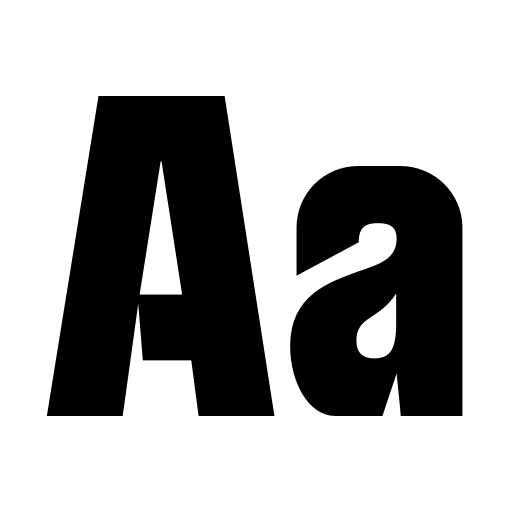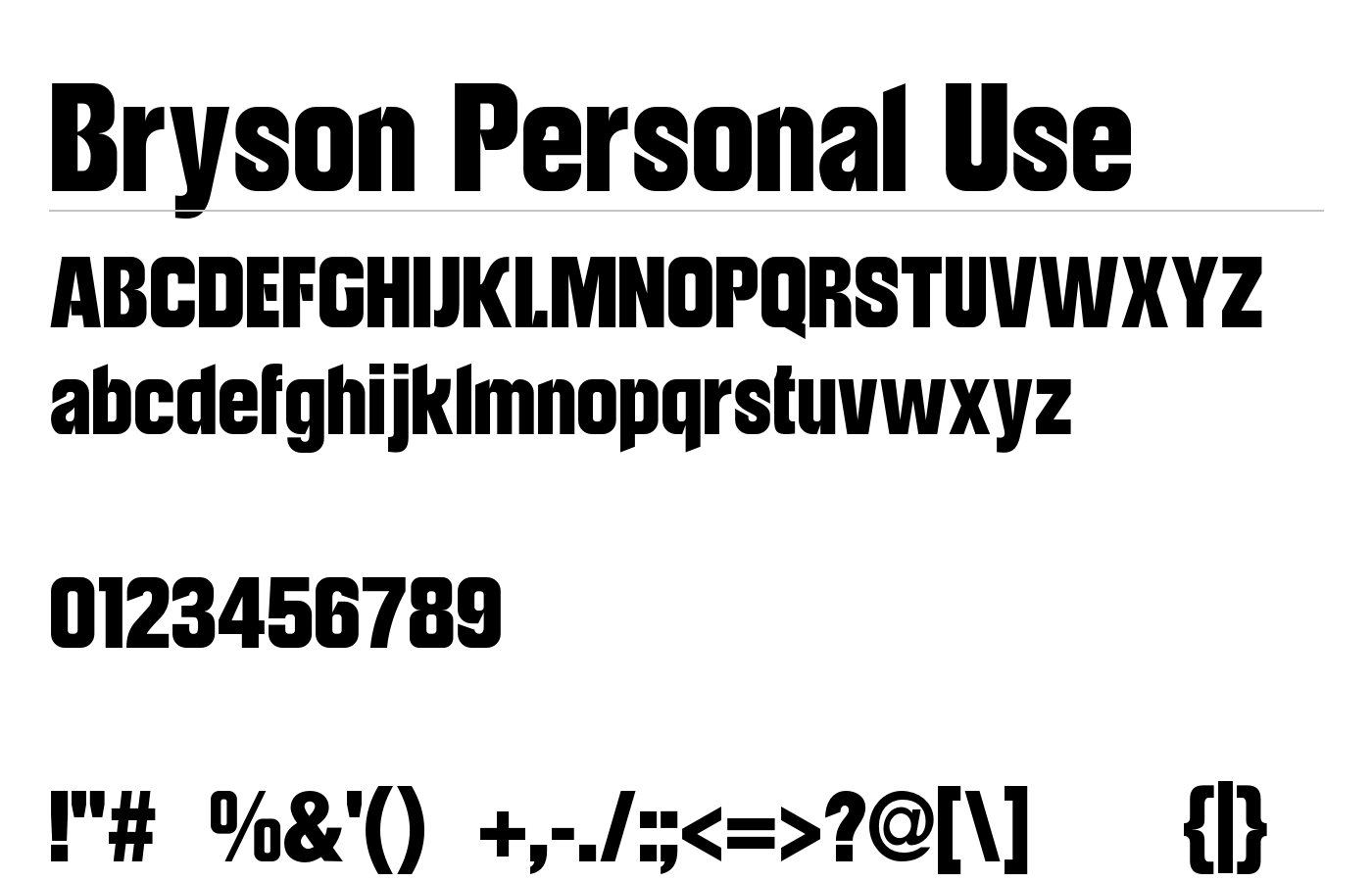
Bryson Personal Use is a bold, condensed sans serif font with a strong, modern feel. Its heavy weight and tight spacing give it a commanding presence, making it ideal for impactful headlines, logos, and branding projects that need a confident, urban edge. This font’s clean lines and straightforward shapes create a versatile style suited for posters, websites, and editorial use where striking attention is key.
Bryson Personal Use Font
About Bryson Personal Use Font
| Font family | Bryson Personal Use Font |
| Designer | Martin Katibi |